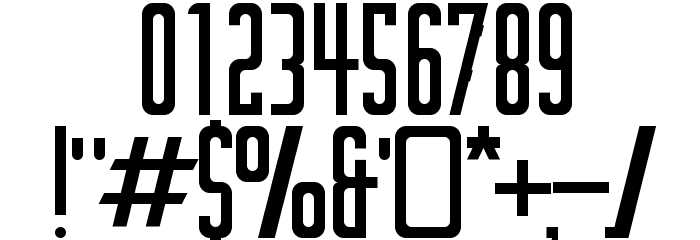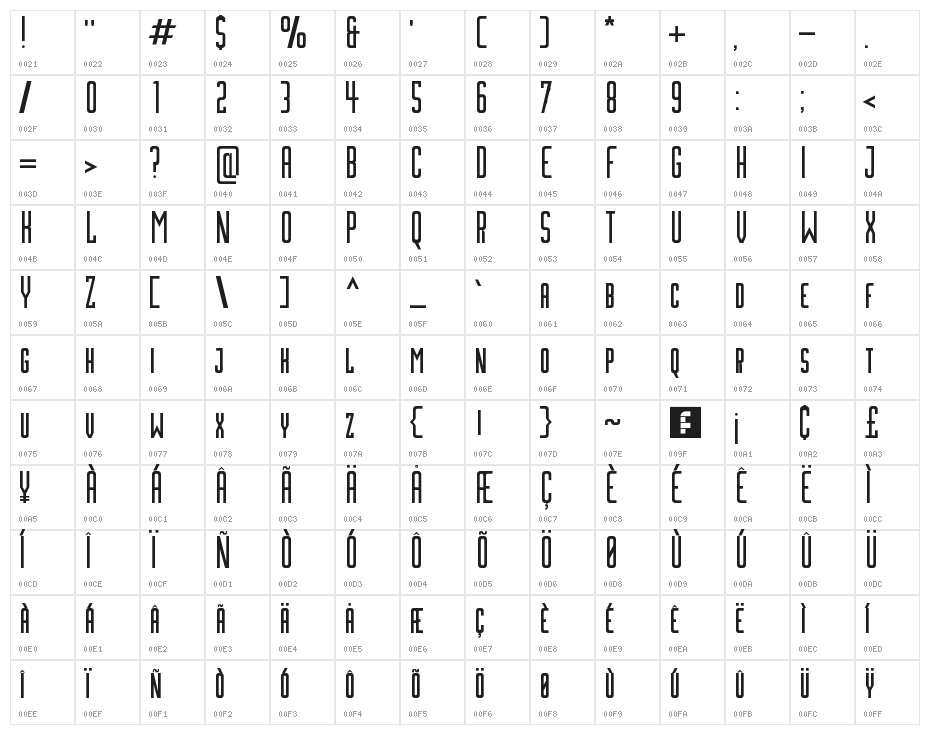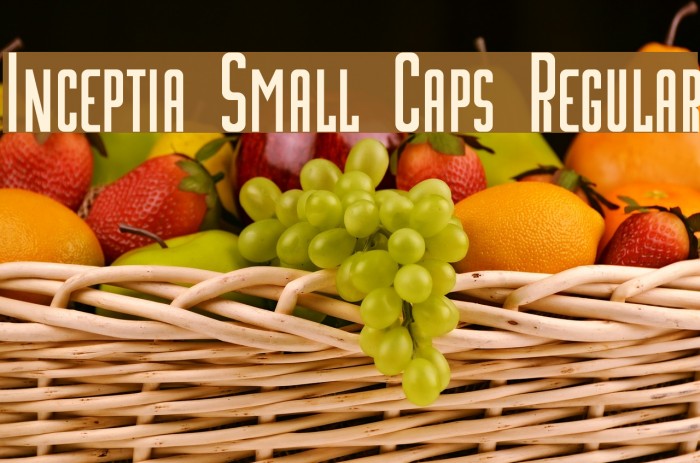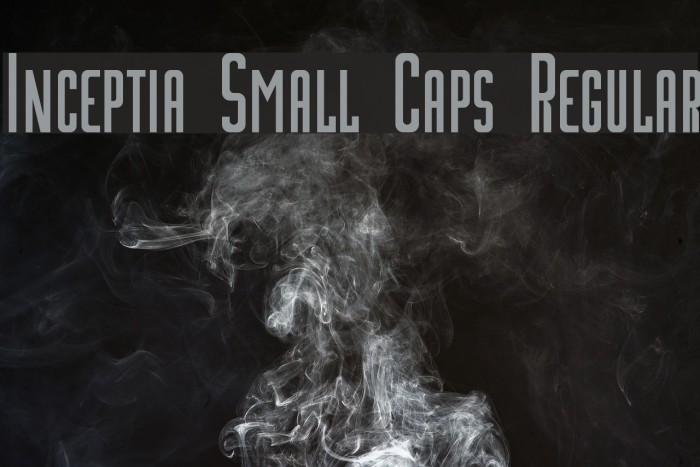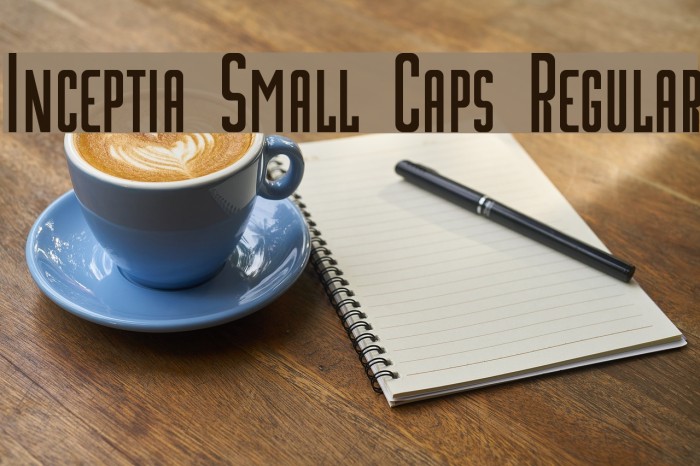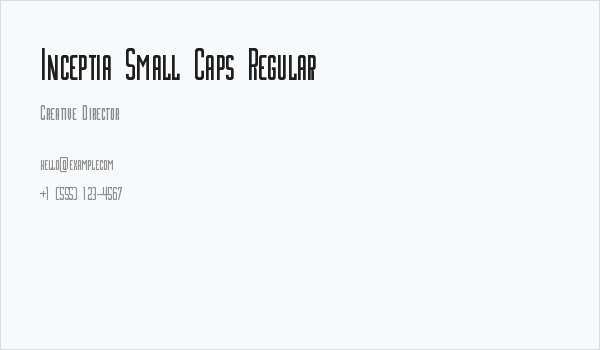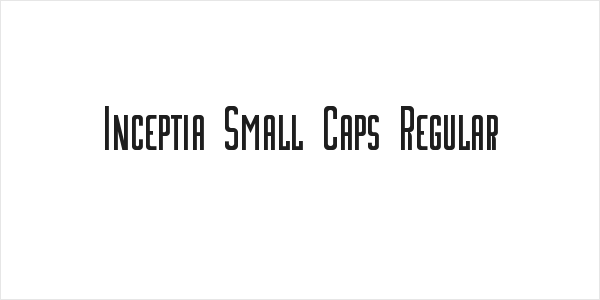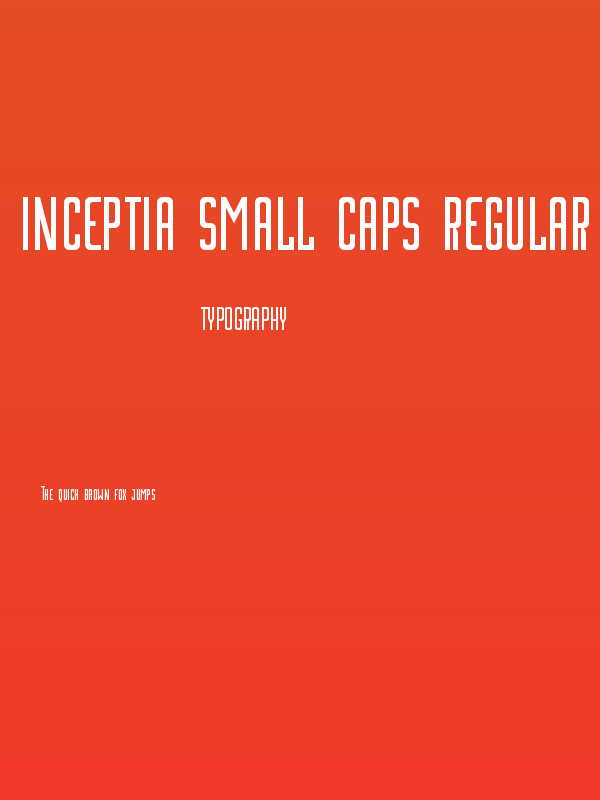
Inceptia Small Caps Regular Font
Inceptia Small Caps Regular Description
This font features a bold and condensed style with a modern and geometric appearance. The uppercase letters are tall and narrow, emphasizing verticality and creating a striking visual impact. The lowercase letters maintain a similar height, giving the font a uniform and cohesive look. The numerals are distinct and align well with the overall design, ensuring readability. Special characters are designed to complement the font's aesthetic, with clean lines and sharp angles. The font's structure is consistent, making it suitable for various design applications where a strong and contemporary presence is desired.
| Proposed Projects | Ideal for branding, posters, headlines, and any project requiring a bold and modern aesthetic. |